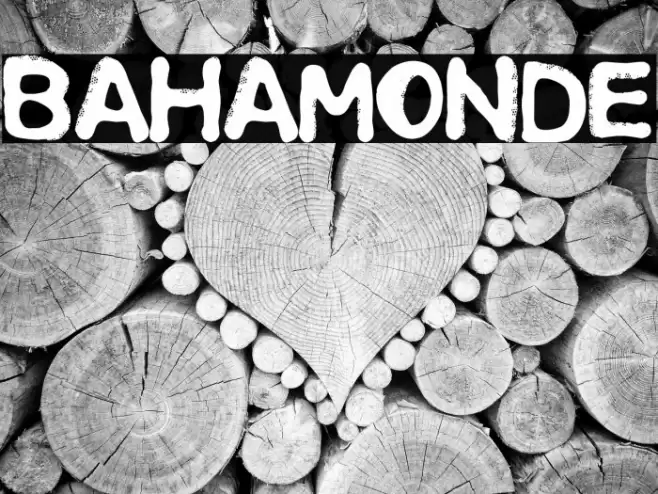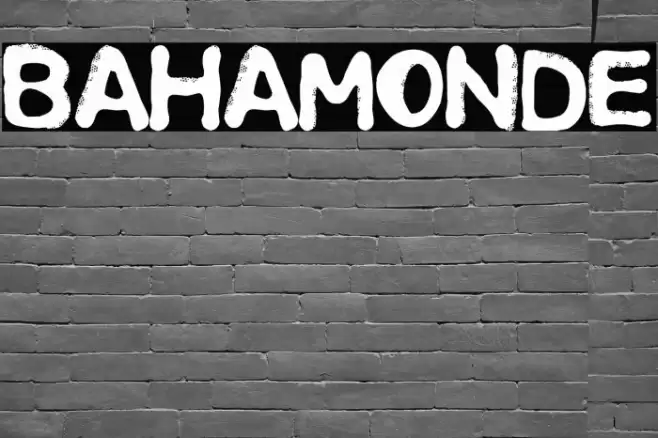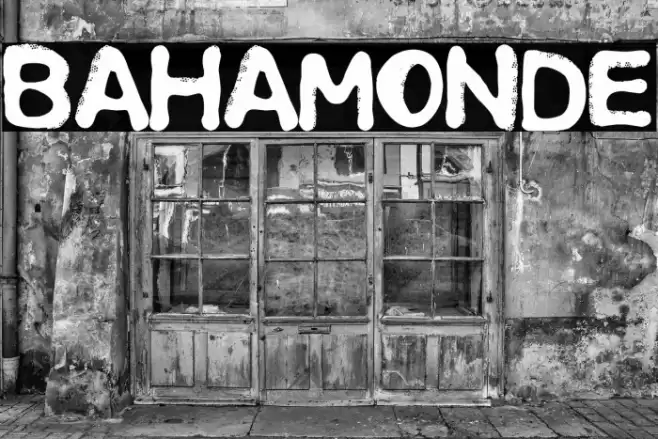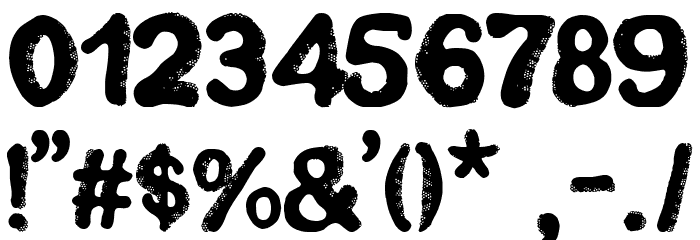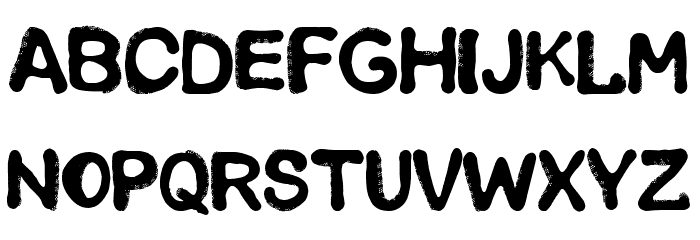
Bahamonde Font
Bahamonde Description
This font features a bold and playful design with a textured, distressed appearance that gives it a hand-painted feel. The characters are rounded and slightly irregular, adding to the casual and artistic vibe. The uppercase and lowercase letters maintain a consistent style, with the numbers and special characters following suit. The font's unique texture makes it stand out, providing a sense of movement and energy. It's ideal for projects that require a creative and informal touch, such as posters, flyers, and artistic branding materials.
A bold, textured font with a playful, hand-painted style from Uncategorized fonts.
- Proposed Projects: Ideal for posters, artistic branding, flyers, and creative projects.